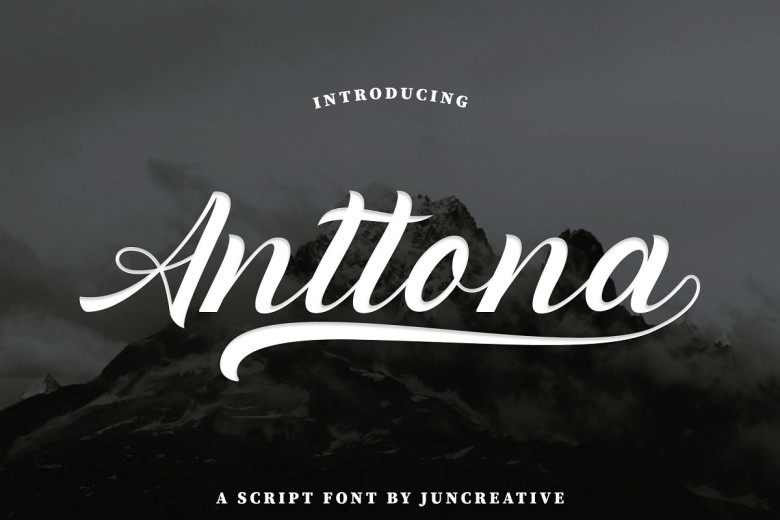
Anttona Font
Anttona features a classic vintage aesthetic with modern appeal! Perfect for branding, logos and greeting cards; perfect also for book titles, stationery quotes clothing logos branding etc. Also encoded with PUA for accessing all glyphs and Swashes!
Anttona Calligraphy Script Font